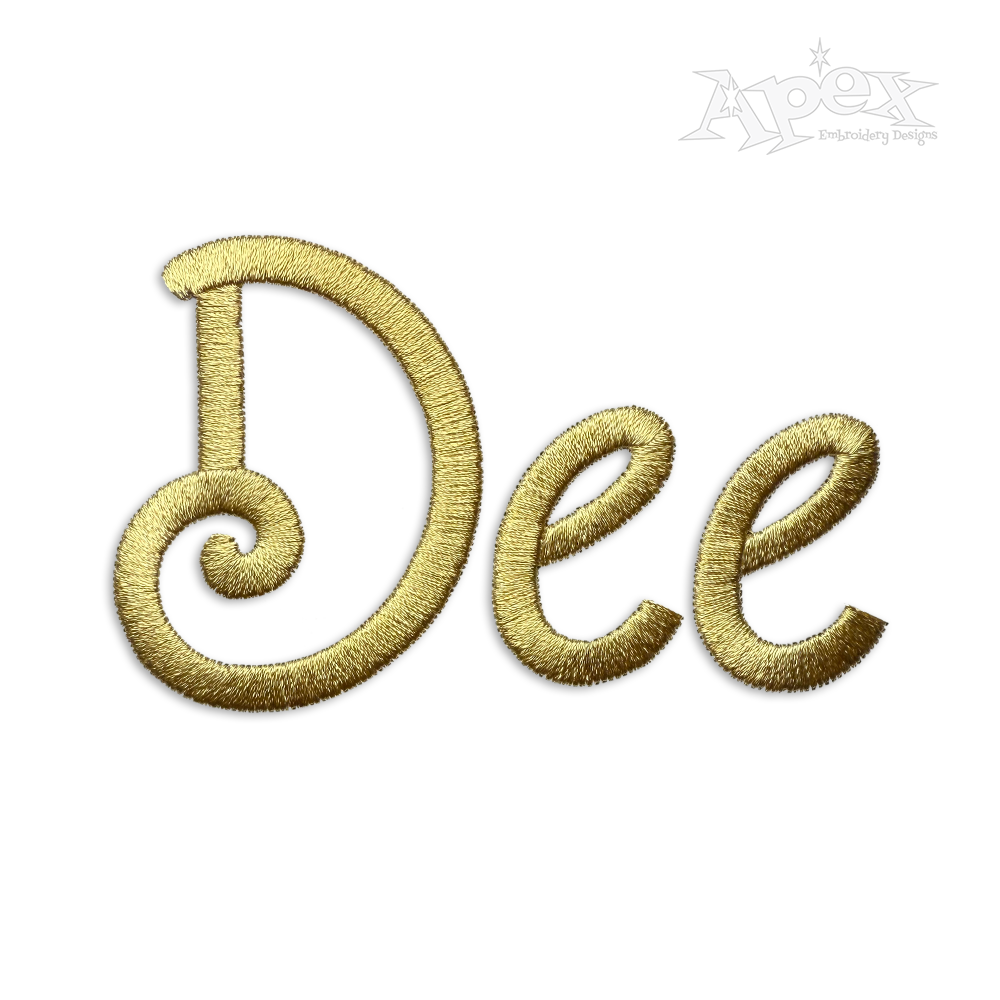
Juneau Curlz Embroidery Font
When we drafted Juneau Curlz at the digitizing board, our goal was to capture an effortless harmony of lighthearted whimsy and pristine artisan tailoring. Inspired by the joyful twirl of northern breezes and the celebratory flair of hand-spun calligraphy, this satin stitch alphabet dances with spirited curls, buoyant terminals, and a rhythmic, dancing baseline. Each curve has been plotted by hand to ensure seamless stitch transitions under your embroidery needle, yielding a radiant sheen that catches the light across every loop and flourish. Whether adorning a crisp coastal linen or adding sweet personality to children's heirloom apparel, Juneau Curlz turns simple monograms into exuberant works of textile art.
Digitized with meticulous stitch budgeting and multi-density calibration, Juneau Curlz provides crisp structural integrity across four graduated scales. Each size has been individually tuned to preserve the beauty of its circular flourishes without overcrowding:
Because Juneau Curlz features dynamic spiral terminals, proper placement creates balanced visual symmetry across varied textiles:
Juneau Curlz Craft & Letterform Details
Designing a font filled with intricate curls requires careful digitizing architecture to prevent dense thread bunching and fabric distortion. Each spiral terminal in Juneau Curlz features customized underlay foundations that support the topstitching while remaining supple to the touch. We intentionally feathered the satin stitch angles through the apex of every curve, ensuring the thread turns with fluid grace rather than creating sharp, angular breaks.
Generous push-and-pull compensation has been engineered into every letterform, guaranteeing that inner loops remain open and perfectly circular even on textured fabrics like pique, terry cloth, or woven linen. The resulting embroidery delivers smooth edge definition, vibrant dimensional luster, and a soft hand feel that reflects the true dedication of master embroidery craftsmanship.